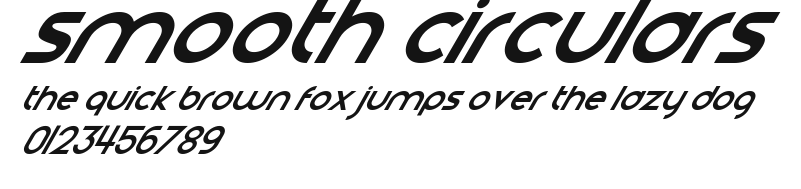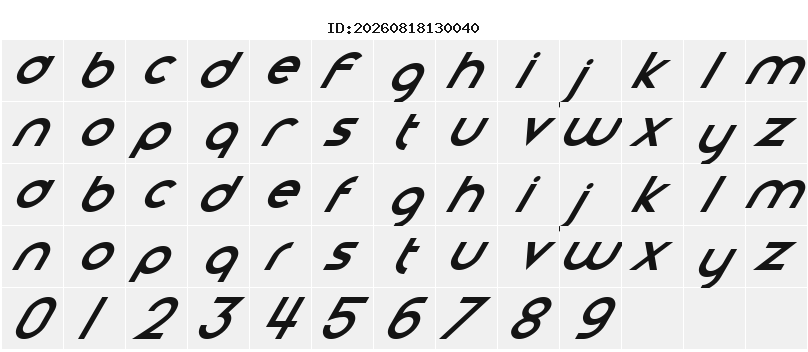
• Font Name: Smooth Circulars
• Full Font Name: Smooth Circulars Italic
• Version: Version 1.00 September 26, 2014, initial release
• Designer: Darrell Flood
About Smooth Circulars.otf
Smooth Circulars.otf is a modern, elegant sans-serif font designed for ultimate readability and visual harmony. Perfect for branding, headlines, web design, and print materials.